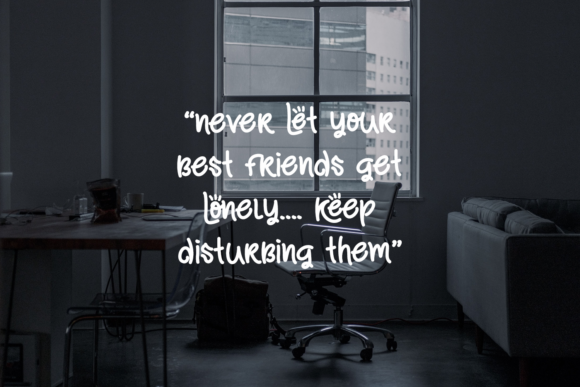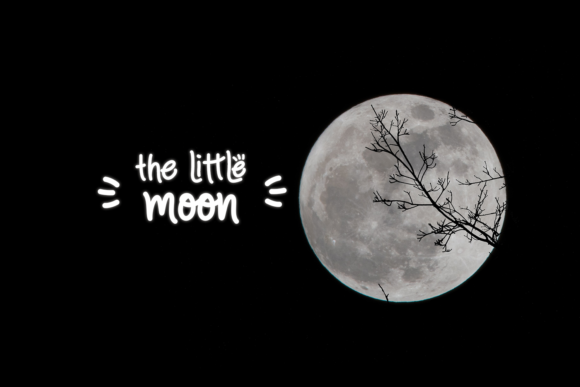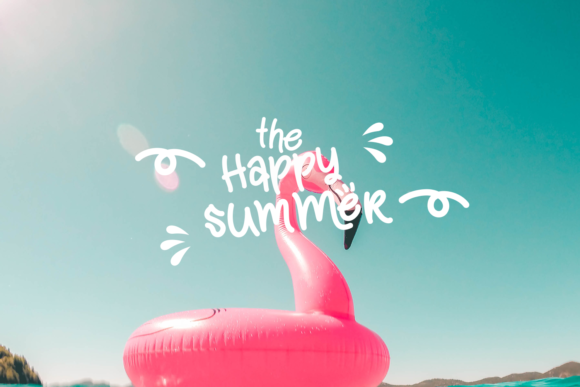
Introduction to Kebo Font
Kebo is a fun and quirky handwritten font.
Use it to add a playful touch to any of your design projects This font is PUA encoded which means you can access all of the glyphs and swashes with ease.
Key Features of Kebo Font